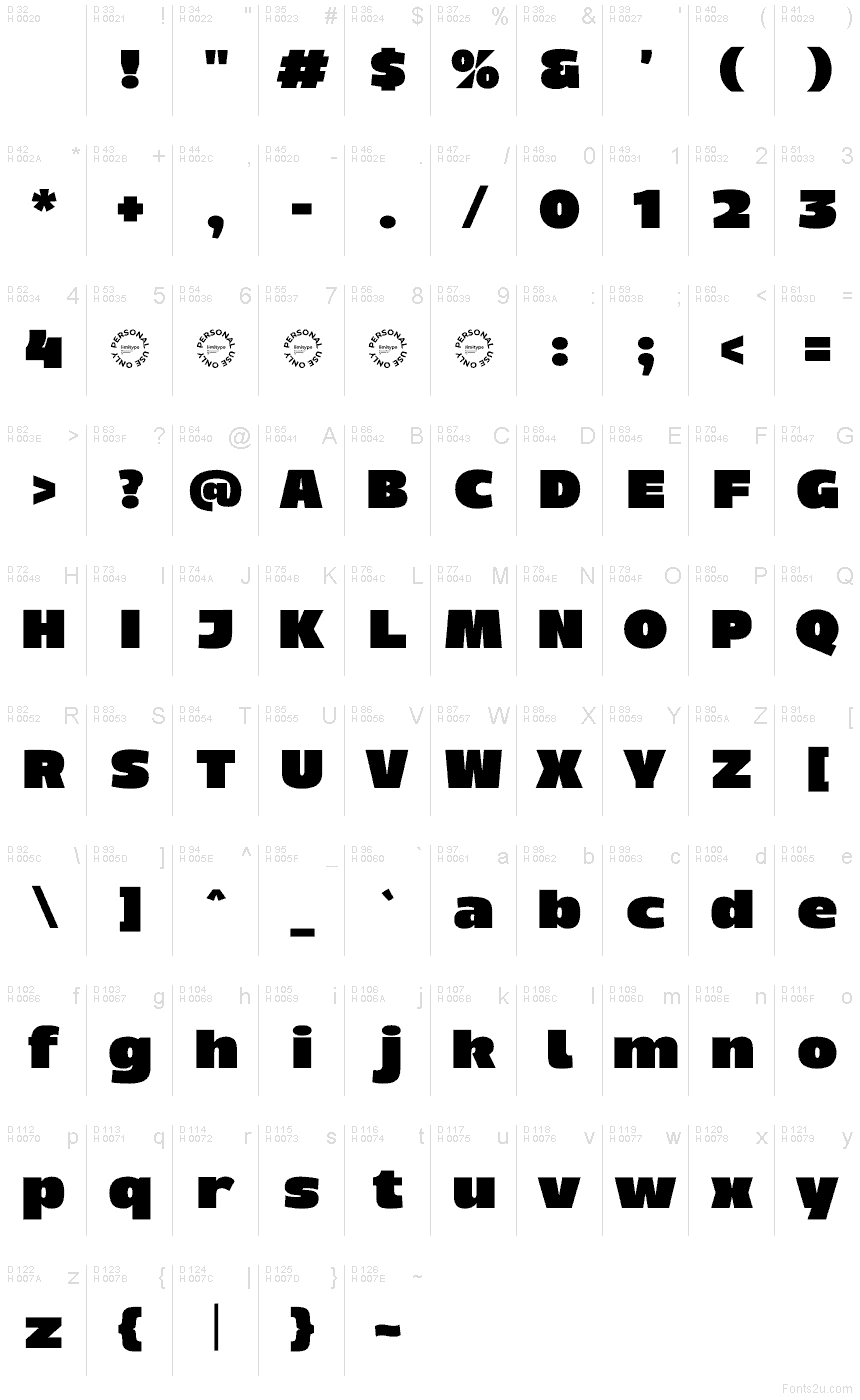
Eatvetica Demo
Eatvetica font by Limitype is a free bold sans serif display font. Thick strokes, soft corners, and wide, juicy bowls give it a playful heft that reads like a bite-worthy headline. The rhythm is compact yet friendly, with generous counters that keep it legible at big sizes while delivering a satisfying, billboard-level punch.
Using Eatvetica, your branding instantly leans approachable and flavorful—great for restaurant logos, menu headers, food-truck wraps, snack packaging, pop-up posters, and social promos. This free font shines when you want loud, upbeat messaging without harsh edges. Pair it with a light grotesk for body copy, and give it a touch of tight tracking to maximize that appetizing impact.